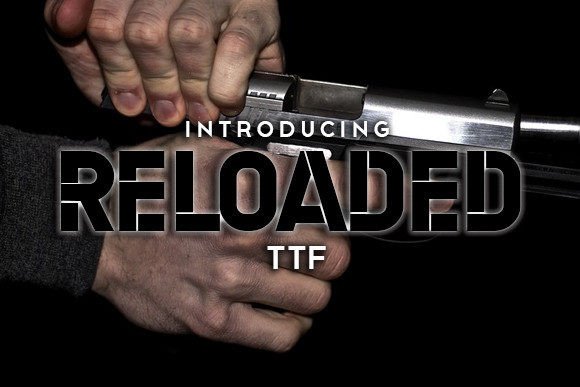
Introducing Reloaded Font - a Stencil Masterpiece for Bold Expressions!
Unleash your creativity and leave a lasting impact with Reloaded Font, the ultimate stencil typeface that commands attention. Inspired by the brave soldiers who wear their names with pride, Reloaded Font is not just a font; it's a symbol of strength, courage, and individuality.
This exceptional display font boasts sharp edges, clean lines, and a striking presence that will make your designs stand out. Whether you're creating army name tapes, eye-catching posters, or bold banners, Reloaded Font is the perfect choice for conveying a powerful message.
Imagine the impact your designs will have when adorned with Reloaded Font. Your words will carry weight, your message will resonate, and your creations will leave an unforgettable impression. This font is a game-changer for designers, marketers, and anyone who wants to make a statement.
With Reloaded Font, you can:
- Create army name tapes that exude pride and honor.
- Design posters that demand attention and leave a lasting impact.
- Craft banners that inspire, motivate, and ignite action.
- Unleash your creativity and explore endless design possibilities.
So, why settle for ordinary fonts when you can wield the power of Reloaded Font? It's more than just a font; it's a testament to the strength of the human spirit. Embrace Reloaded Font today and watch your designs soar to new heights of impact and memorability.